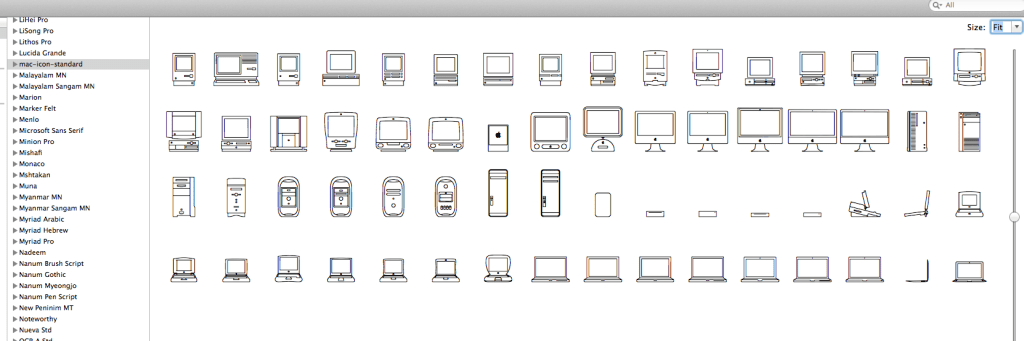
Apple left an easter egg (intentional or otherwise) in its new 30 years of Mac tribute website today: A custom font that depicts each Mac model from the past three decades of its history as a maker of personal computers. IOS developer and hacker Greg Barbosa discovered the icon set, and tweeted a link so that others could find and download it, too (via Seth Weintraub):
The font uses special private characters so once installed, you won’t be able to just type to use it as you would a normal font, but you can copy and paste the different models from the OS X Font Book application and paste them into other applications. It’s a beautifully designed collection of Macs throughout the years reduced to simple, elegant line drawings, and there’s no telling how long it’ll remain available for download, so if you’re interested in having the collection for private use, it’s probably best to grab it now.